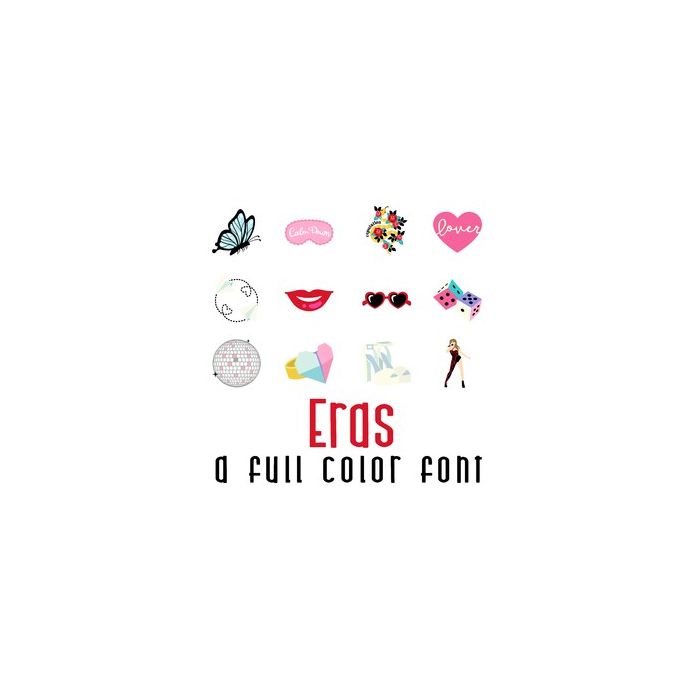
This adorable full-color doodlebat font features 26 iconic images from your favorite pop artist. Perfect for parties, classroom, cards, gifts, planner stickers, scrapbook pages and more!